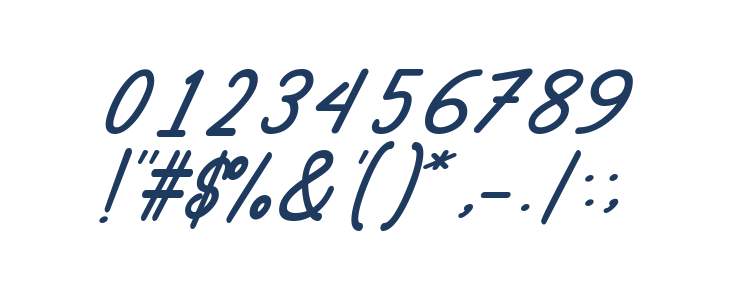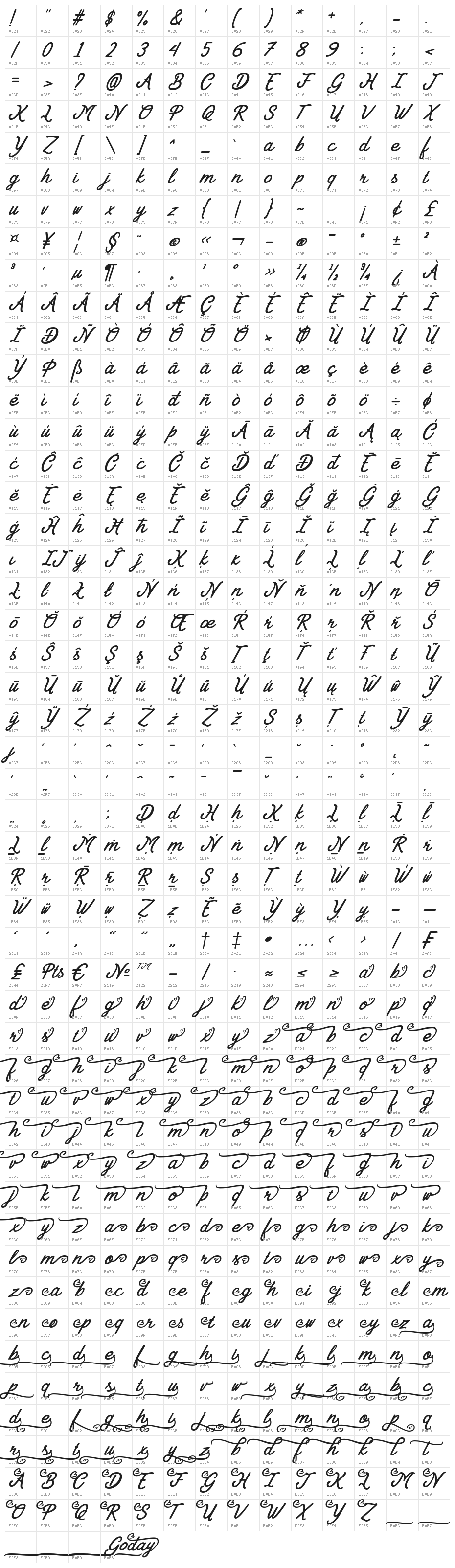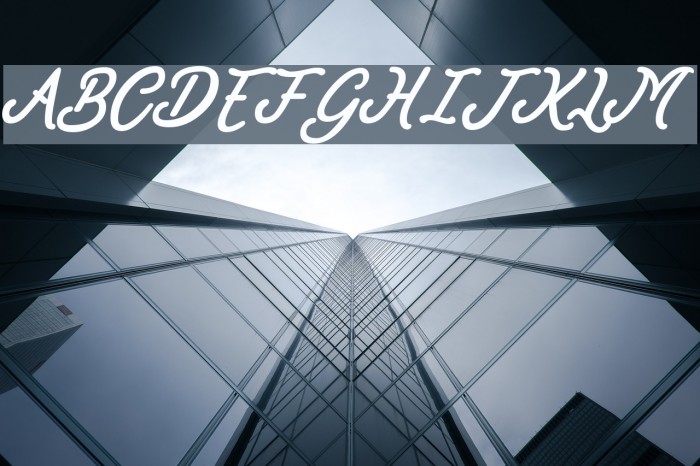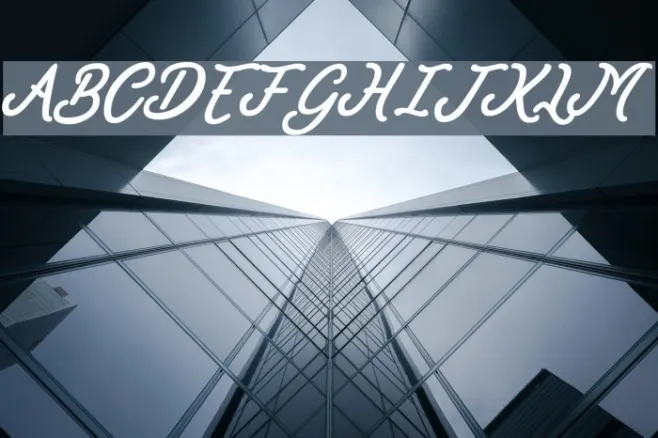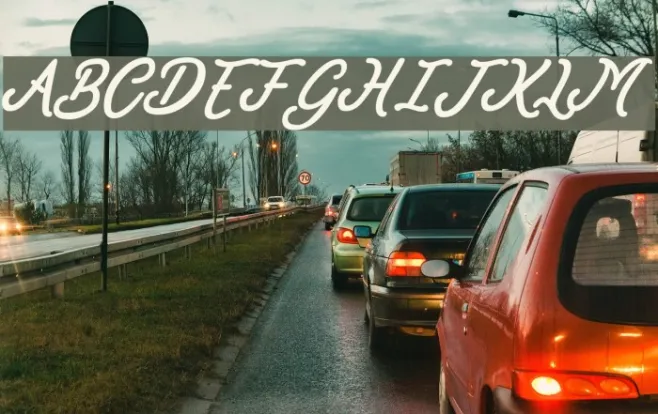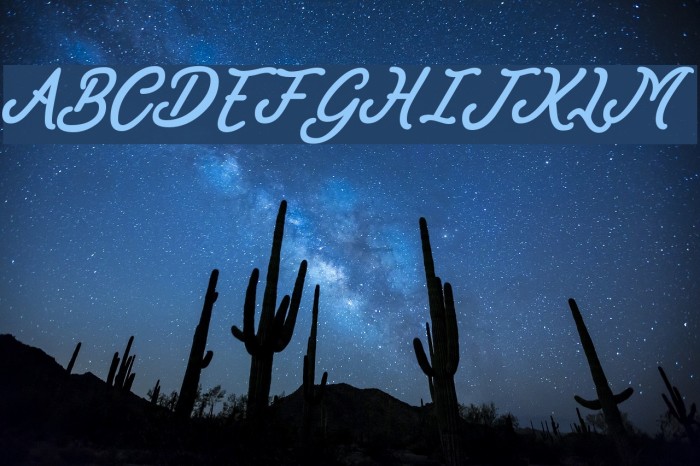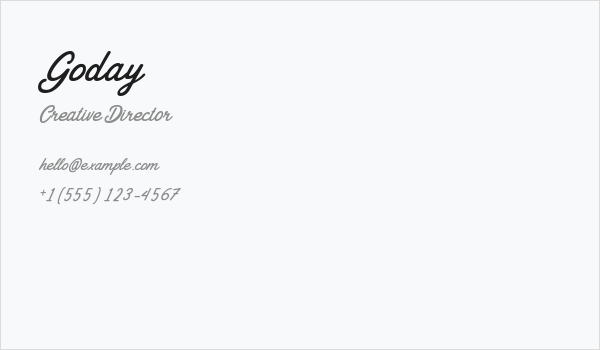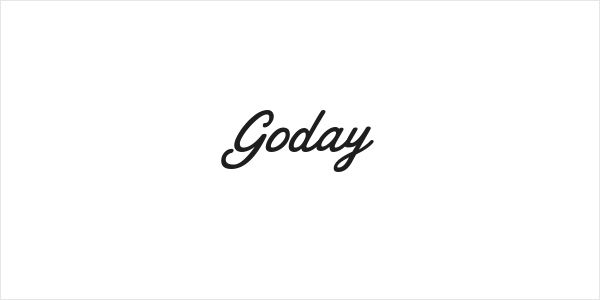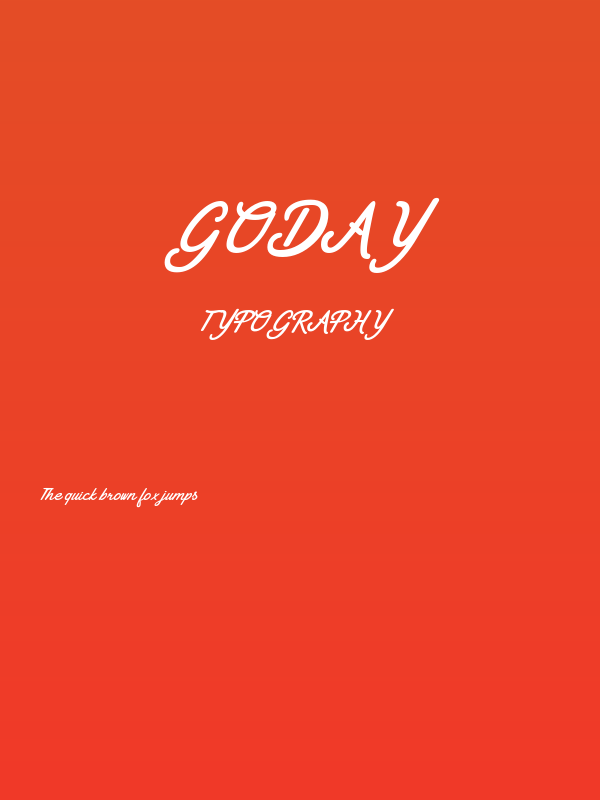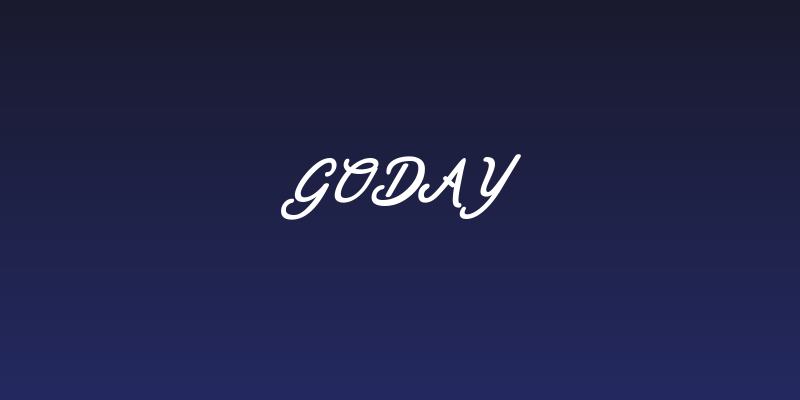
Goday Font
Goday Description
This font features a fluid and elegant script style, characterized by its smooth, flowing lines and cursive letterforms. The uppercase letters are slightly more ornate, with graceful curves and loops, while the lowercase letters maintain a consistent rhythm and balance. The numerals are clear and legible, matching the overall aesthetic with their rounded shapes. Special characters are seamlessly integrated, maintaining the font's cohesive look. This typeface exudes a sense of sophistication and charm, making it suitable for a variety of design applications.
| Proposed Projects | Ideal for wedding invitations, greeting cards, branding, and elegant packaging designs. |